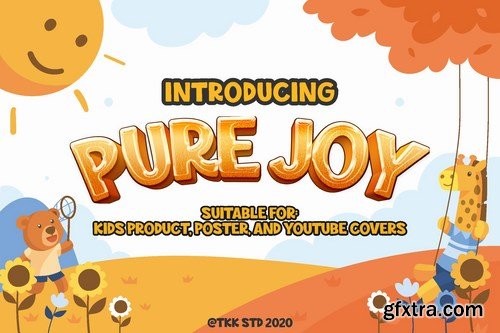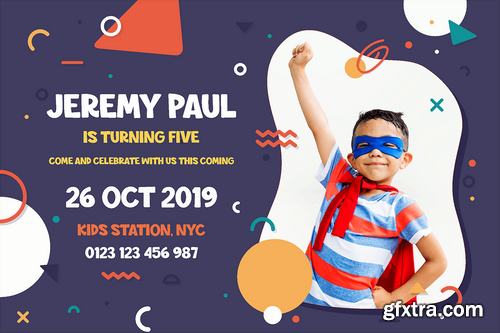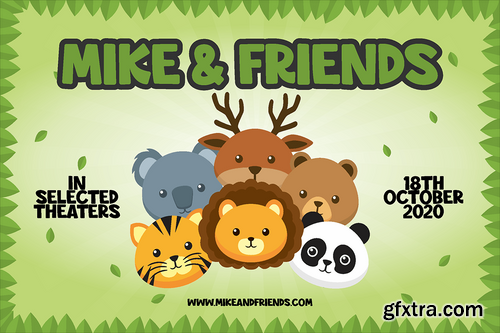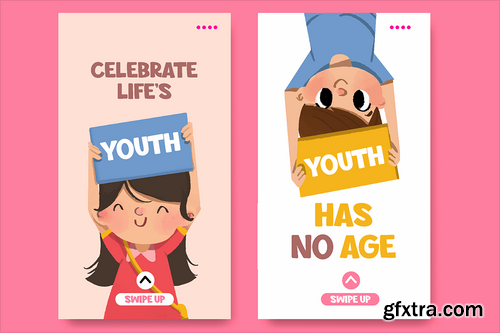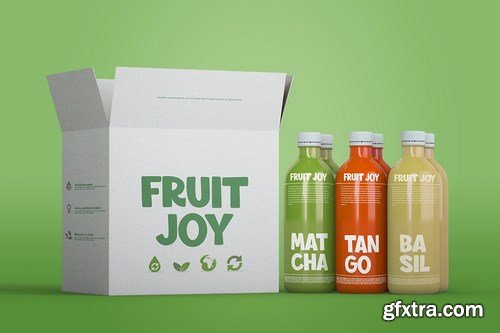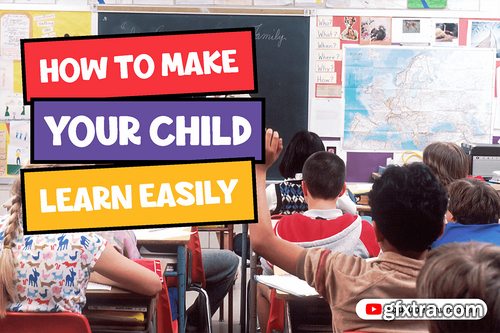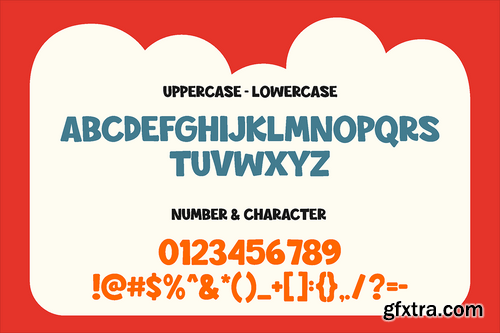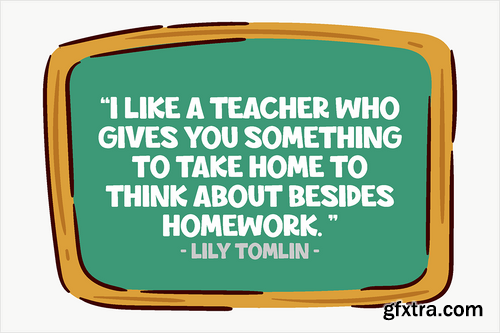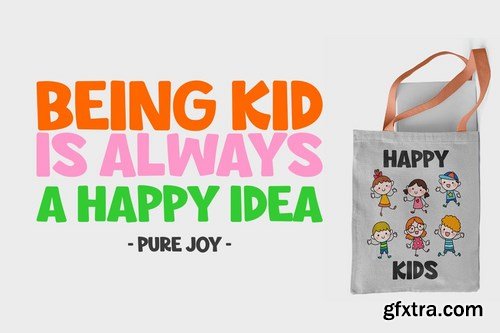
Pure Joy is just like its name. spreading happiness in the purest thing ever. with bold stem and rounded corner, Pure Joy sure thing will make your message came across without being worry of missing out in the store self.